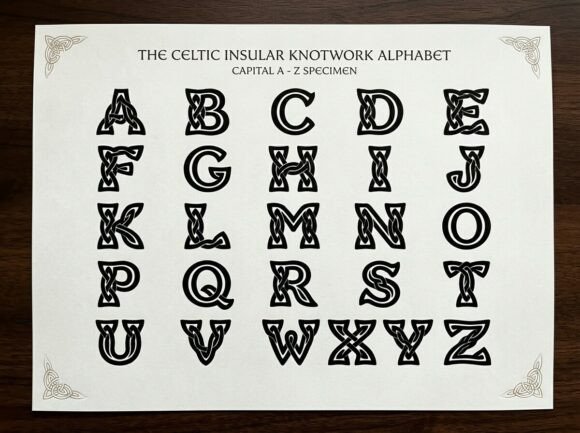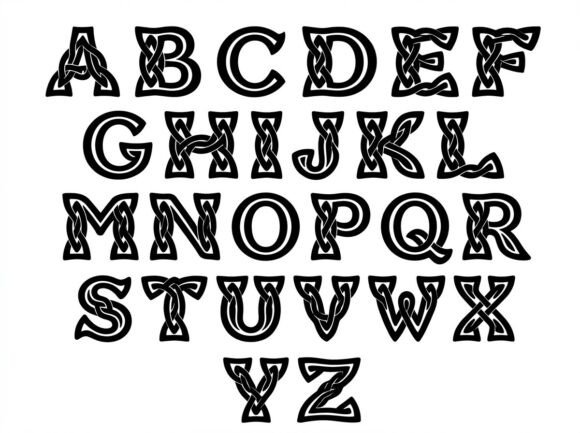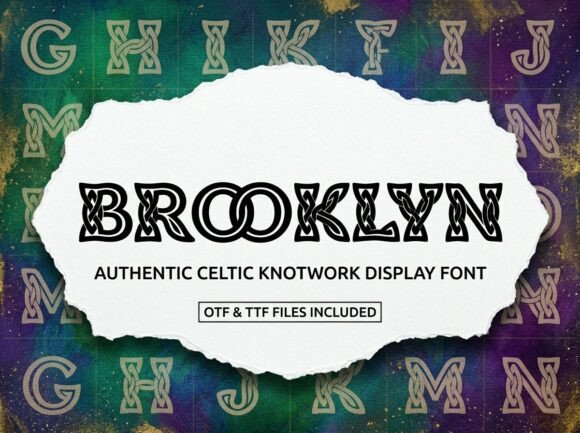
Introducing Brooklyn Font: A Stunning Decorative Display Font
Are you tired of using the same old fonts for your designs? Do you want to add a touch of uniqueness and creativity to your projects? Look no further than Brooklyn Font, a decorative display font that is sure to turn heads. In this article, we’ll take a closer look at what makes Brooklyn Font special and how it can elevate your designs.
Brooklyn Font is a stunning decorative display font designed to be the center of attention. With its unique artistic elements and strong visual personality, this font is perfect for creators who want to break away from the ordinary. Whether you’re working on a bold headline, artistic logo, or creative packaging, Brooklyn Font is versatile enough to make a lasting impression while maintaining a professional and polished finish.
Brooklyn Font is perfect for designers and crafters who want to add a touch of elegance and sophistication to their projects. With its unique and artistic elements, this font is ideal for:
- Headlines: Make a bold statement with Brooklyn Font’s high-impact headlines that demand attention.
- Logos: Create a lasting impression with Brooklyn Font’s unique and artistic logo designs.
- Packaging: Add a touch of creativity and elegance to your packaging designs with Brooklyn Font.
- Signs: Make a statement with Brooklyn Font’s bold and eye-catching signs.
Tips for Using Brooklyn Font
Here are some tips for getting the most out of Brooklyn Font:
- Use it sparingly: Brooklyn Font is a decorative display font, so use it sparingly to make a lasting impression.
- Experiment with colors: Try pairing Brooklyn Font with different colors to create a unique and eye-catching design.
- Mix and match: Combine Brooklyn Font with other fonts to create a unique and creative design.
In conclusion, Brooklyn Font is a stunning decorative display font that is perfect for designers and crafters who want to add a touch of uniqueness and creativity to their projects. With its unique artistic elements and strong visual personality, this font is sure to turn heads. Whether you’re working on a bold headline, artistic logo, or creative packaging, Brooklyn Font is versatile enough to make a lasting impression while maintaining a professional and polished finish.